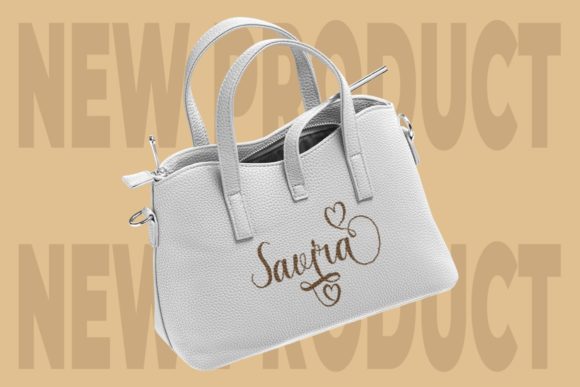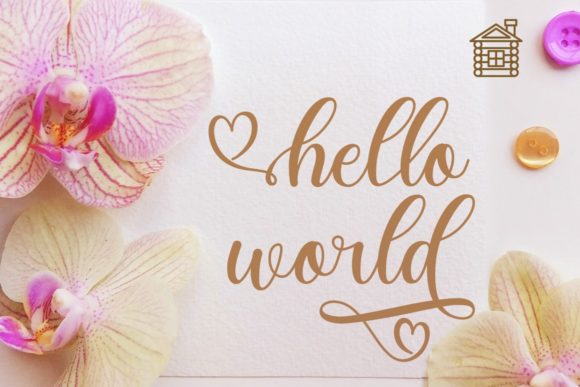
About Romantic Dates Font
Romantic Dates is a captivating and dreamy handwritten font that exudes warmth and charm. Its soft and flowing letters create a romantic and whimsical atmosphere, making it perfect for a variety of projects.
With its PUA encoding, Romantic Dates offers easy access to a wide range of glyphs and swashes, allowing you to customize and embellish your designs effortlessly. This flexibility enables you to add intricate details and decorative elements to your text, further enhancing the beauty and uniqueness of your projects.
The balance and variation in the letterforms of Romantic Dates contribute to its overall appeal. It strikes the perfect balance between being not too thin and not too thick, making it readable and visually pleasing. The varied letter shapes and sizes add a touch of playfulness and creativity to your designs.
Romantic Dates is designed to enhance the beauty of your projects, regardless of the context. It is well-suited for wedding invitations, love letters, greeting cards, quotes, and any other design that requires a romantic and dreamy touch. The font’s warm and inviting nature evokes feelings of love, passion, and intimacy, creating a heartfelt connection with your audience.
Beyond romantic themes, Romantic Dates can be used in various design applications. Its versatile style makes it suitable for branding materials, social media graphics, packaging, and more. Whether you’re creating a logo for a cozy café, designing a book cover with a whimsical feel, or crafting an eye-catching poster, Romantic Dates adds a touch of enchantment and elegance to your visual compositions.
In addition to its aesthetic appeal, Romantic Dates ensures legibility and readability, allowing your message to shine through clearly. The flowing and organic letterforms maintain a harmonious rhythm, making it easy for your audience to engage with your content.
Whether you’re a professional designer or someone with a passion for creativity, Romantic Dates is a font that will elevate your projects and create an atmosphere of romance and warmth. Its dreamy and warm handwritten style, combined with its PUA encoding and balanced design, makes it a versatile and delightful choice for a wide range of design projects.